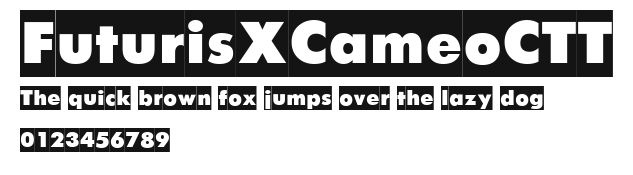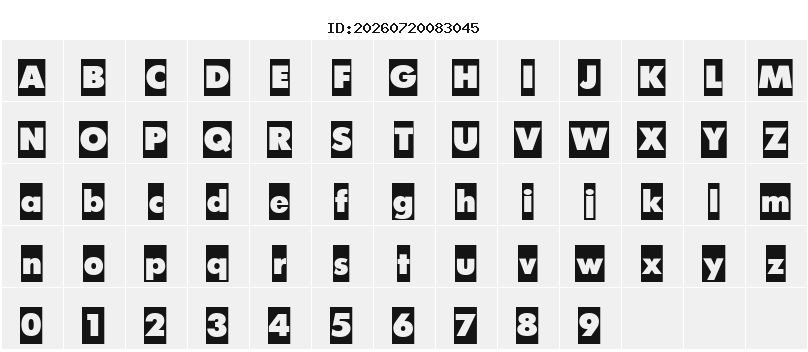
FuturisXCameoCTT Preview
About FuturisXCameoCTT.ttf
FuturisXCameoCTT.ttf is a modern, elegant sans-serif font designed for ultimate readability and visual harmony. Perfect for branding, headlines, web design, and print materials.